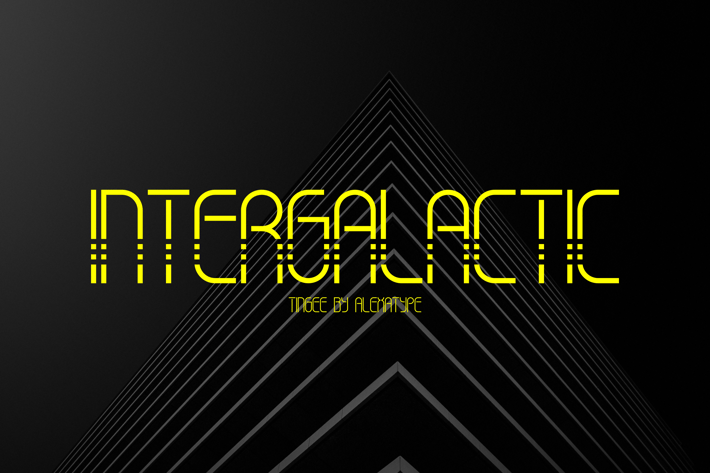
TINGEE - Intergalactic Font
TINGEE is a futuristic font with slice style for the uppercase.
Perfect for high-end article headline, space, modern technology and digital related project.
The long vertical style will emphasize the modern vibe of your project.